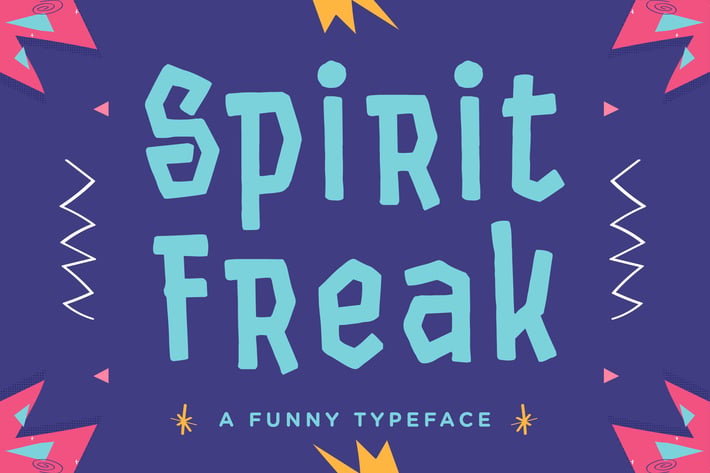
Spirit Freak - Funny Typeface
Spirit Freak is a funny display font.
It embodies playfulness and authenticity and is the perfect choice for any children's activity, fantasy, game font, party invitation, or school project.
Add this fun display font to your designs and notice how it makes them come alive!